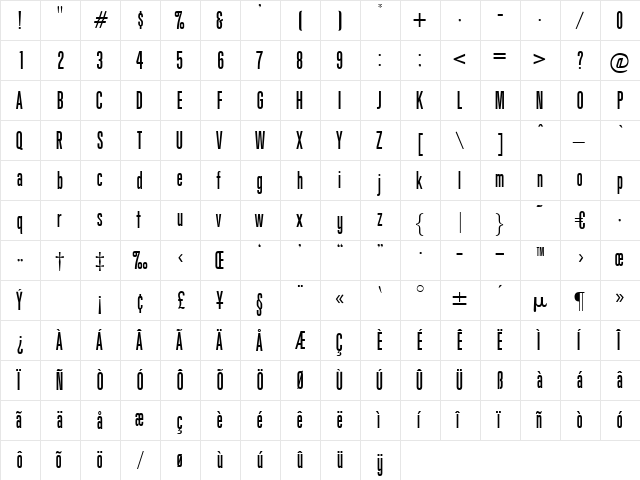
Undertaker Regular
Design Context for Undertaker Typeface
Undertaker is a composed and adaptable typeface that performs quietly and consistently across a wide range of design contexts.